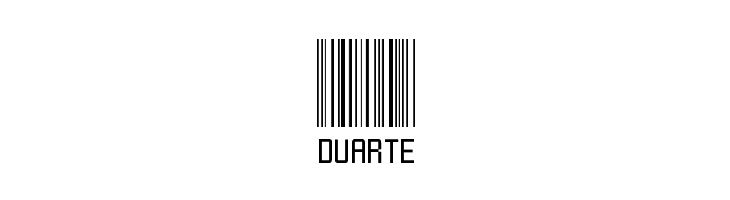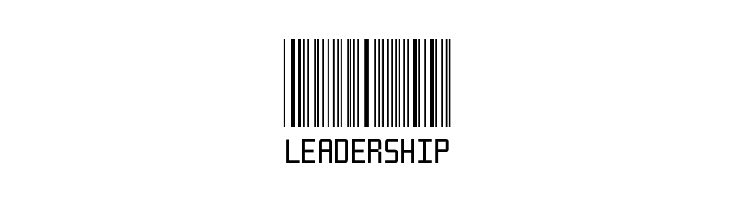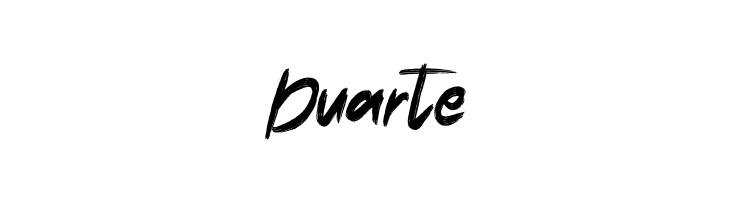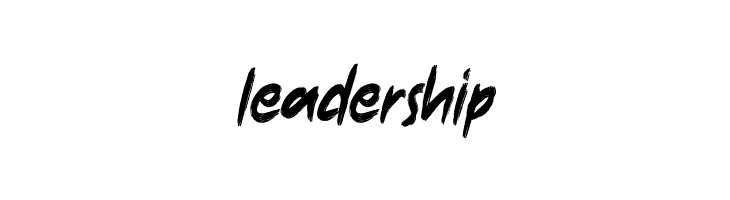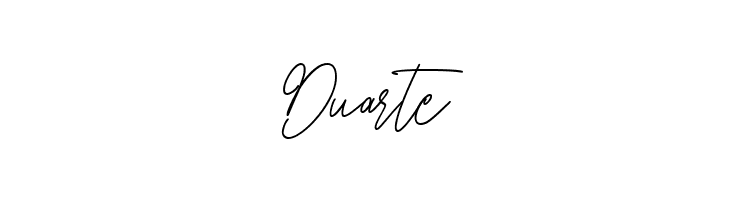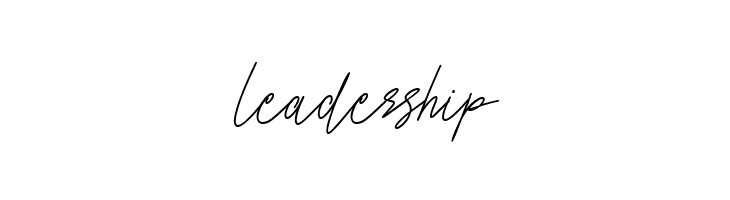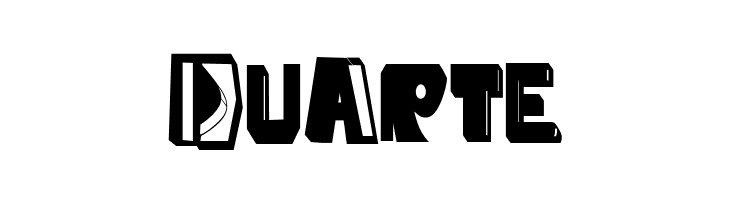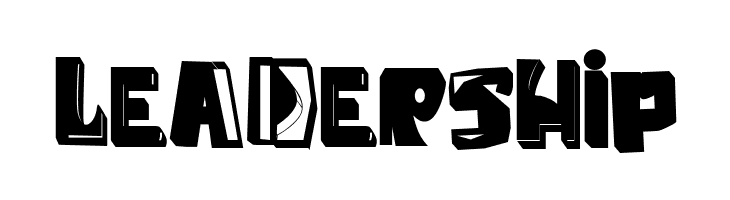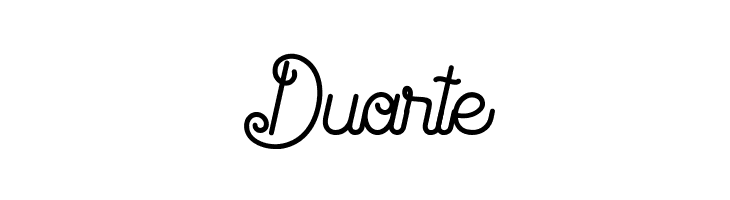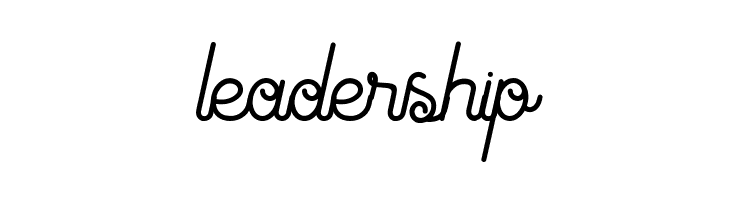
( Fonts by Zanatlija - Personal-use only. For commercial use please contact owner. ) A barcode-style font with vertical lines representing each character. Download 181 Downloads@WebFont
( Fonts by Southype ) Expressive, cartoon-style font with faces as characters. Download 151 Downloads@WebFont
( fredcre.free.fr ) A casual, handwritten font with a playful and informal style. Download 395 Downloads@WebFont
( Fonts by fredcre.free.fr - Personal-use only. For commercial use please contact owner. ) A playful, handwritten-style font with a casual and dynamic appearance. Download 480 Downloads@WebFont
( truefonts.blogspot.com ) Ornamental border and flourish collection with vintage, decorative style. Download 283 Downloads@WebFont
( Fonts by Johan Holmdahl - www.free-typewriter-fonts.com ) A nostalgic, typewriter-inspired font with a vintage, mechanical feel. Download 22310 Downloads@WebFont
( truefonts.blogspot.com ) A dot matrix font with a digital, retro aesthetic. Download 266 Downloads@WebFont
( Fonts by Vunira Design - Personal-use only. For commercial use please contact owner. ) A bold, expressive script font with fluid, connected strokes and high contrast. Download 54 Downloads@WebFont
( Fonts by Divide By Zero! - fonts.tom7.com ) A bold, playful font with a hand-drawn, artistic style. Download 477 Downloads@WebFont
( Fonts by Maulana Creative - Gilang Maulana - Personal-use only. For commercial use please contact owner. ) A bold, energetic brush-style font with a dynamic and creative flair. Download 125 Downloads@WebFont
( Fonts by Maulana Creative - Gilang Maulana - Personal-use only. For commercial use please contact owner. ) A dynamic and elegant handwritten font with fluid, connected letterforms. Download 48 Downloads@WebFont
( Fonts by Manfred Klein. Free for private and charity use. Free for commercial with donation to organizations ) A pictographic dingbat font of anthropological and cultural icons. Download 91 Downloads@WebFont
( Fonts by www.paintblackeditions.org - Free for personal use only ) A bold, geometric font with high contrast and unique character designs. Download 965 Downloads@WebFont
( Fonts by www.paintblackeditions.org - Free for personal use only ) A bold, hand-drawn font with a rough, textured appearance. Download 126 Downloads@WebFont
( Gulash - www.czcionki.com/gulash.html ) A bold, hand-drawn font with an organic and playful style. Download 85 Downloads@WebFont
( Fonts by Jacob Fisher - www.pizzadude.dk ) A bold, pixelated font with a retro arcade game aesthetic. Download 372 Downloads@WebFont
( Beraka Design - José Beraka Lobos - about.me/beraka ) A bold, graffiti-inspired font with dynamic, angular characters. Download 179 Downloads@WebFont
( Fonts by Typegenic Studio - Personal-use only. For commercial use please contact owner. ) A sophisticated, elegant handwritten font with fluid, graceful strokes. Download 30 Downloads@WebFont
( N ! C E ) A bold, serif font with strong, classic lines and modern elegance. Download 652 Downloads@WebFont
( Fonts by Manfred Klein. Free for private and charity use. Free for commercial with donation to organizations ) A bold, hand-drawn font with playful and artistic characteristics. Download 176 Downloads@WebFont
( Fonts by Manfred Klein. Free for private and charity use. Free for commercial with donation to organizations ) A bold, angular font with dynamic strokes and modern elegance. Download 163 Downloads@WebFont
( Fonts by Manfred Klein. Free for private and charity use. Free for commercial with donation to organizations ) An artistic, hand-drawn font with angular, whimsical characters. Download 207 Downloads@WebFont
( Fonts by Divide By Zero! - fonts.tom7.com ) A geometric, futuristic font with sharp angles and a digital aesthetic. Download 436 Downloads@WebFont
( Fonts by Southype ) An ornate, medieval-style decorative font with intricate flourishes. Download 402 Downloads@WebFont
( Fonts by PutraCetol Studio - www.putracetol.com - Personal-use only. For commercial use please contact owner. ) An elegant, decorative script font with flowing, ornate characters. Download 36 Downloads@WebFont
Font by fontdationstudio. For commercial use please contact the owner. ( Thank you for downloading this font This font is free for PERSONAL USE ONLY! Commercial license for this font can be purchased at: http://bit.ly/2xZRKX4 ) A bold, hand-painted style font with a textured, artistic finish. Download 300 Downloads@WebFont
( Lutz Baar - baar.se/aidfonts/ ) A bold, dynamic font with a hand-drawn, artistic style. Download 157 Downloads@WebFont
( Fonts by Lutz Baar - www.menschengeist.de ) A bold, hand-drawn style font with angular uppercase and flowing lowercase letters. Download 3867 Downloads@WebFont
( Fonts by Greg Smith ) A bold, Gothic-inspired font with intricate, angular designs. Download 1849 Downloads@WebFont